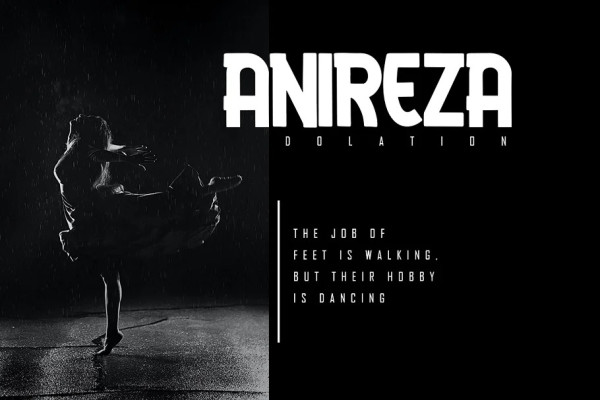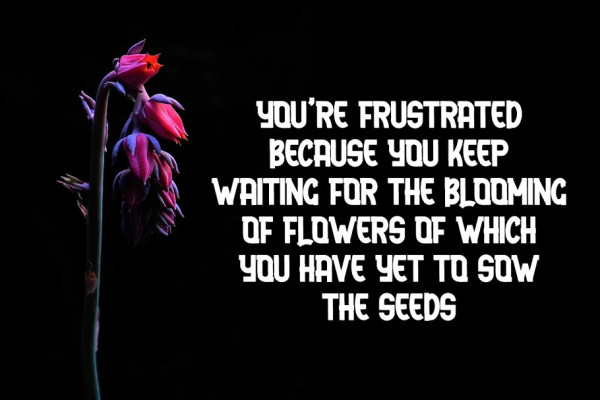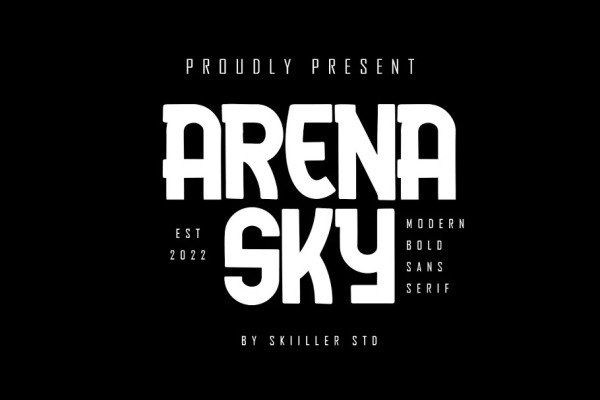
Arena Sky Font
Arena Sky Font is a cool and bold sans serif font. This font is ideal for writing web designs, business cards, or pretty much anything else that requires a unique touch.